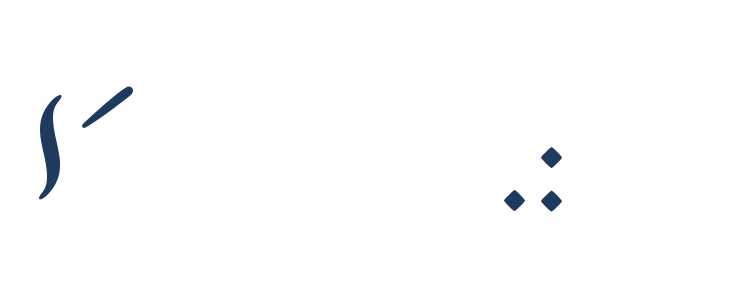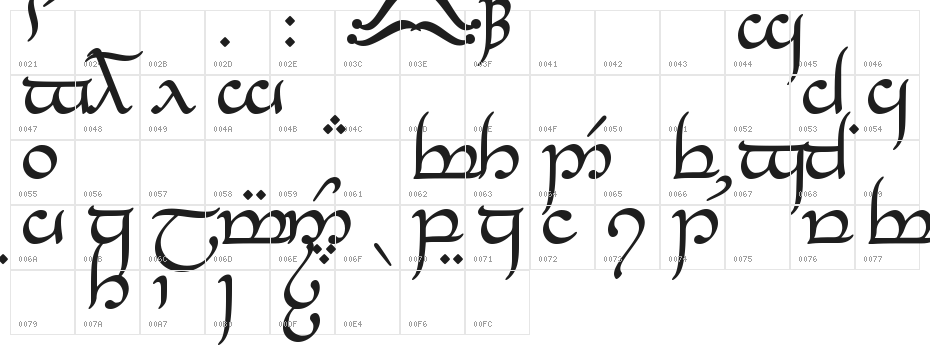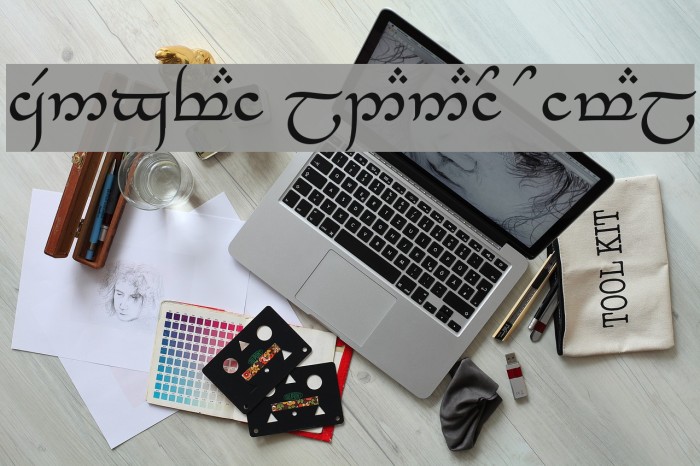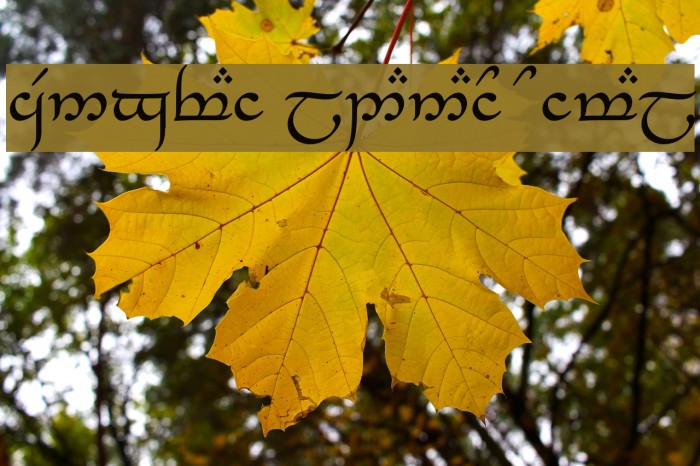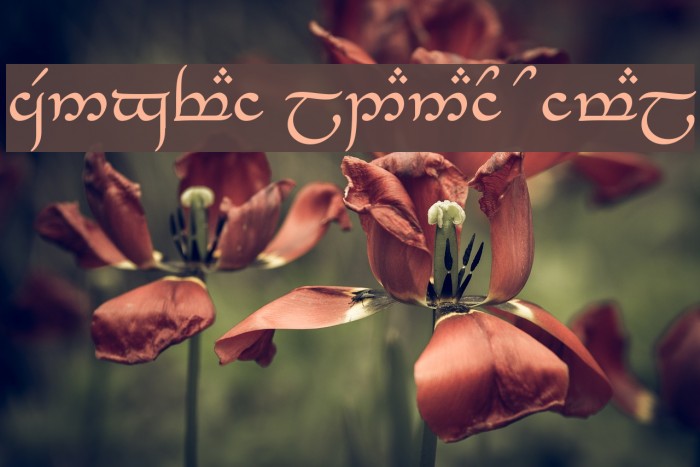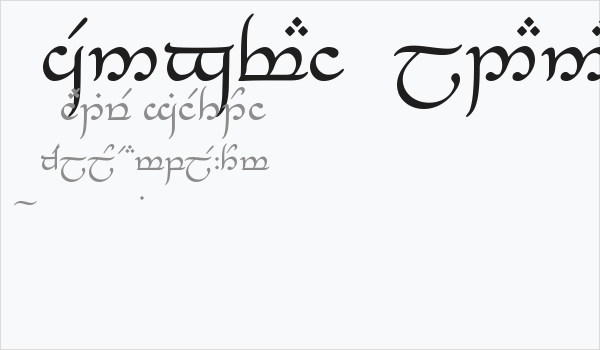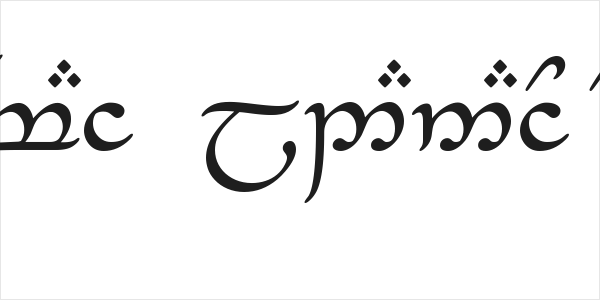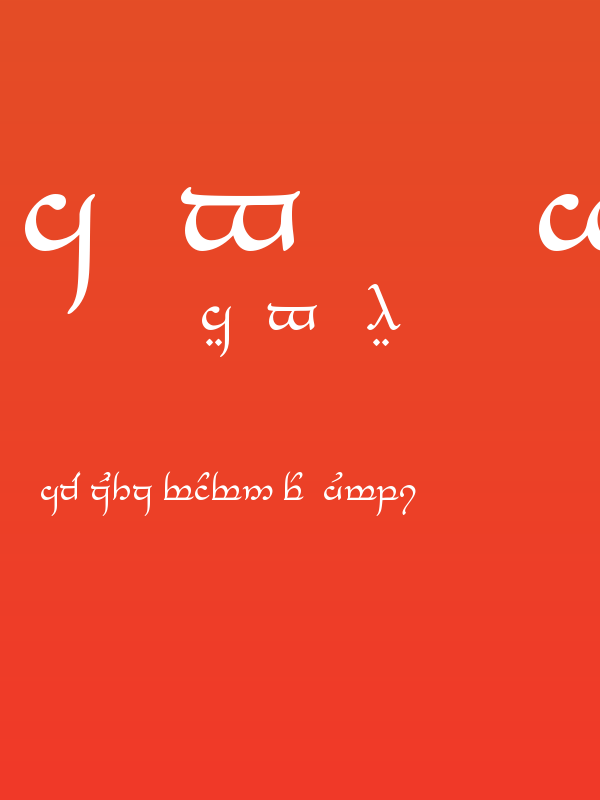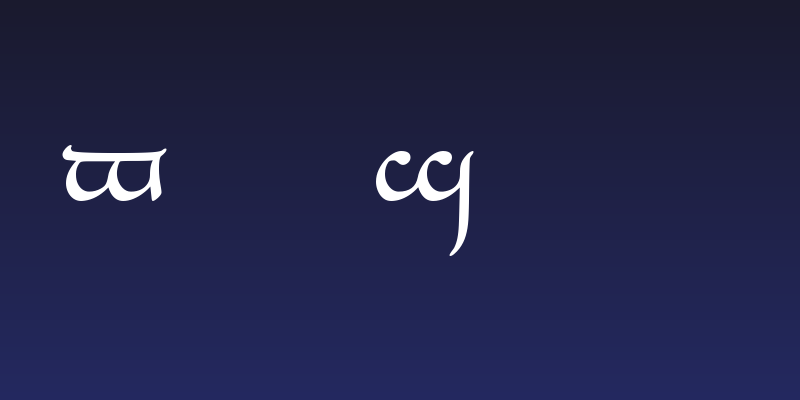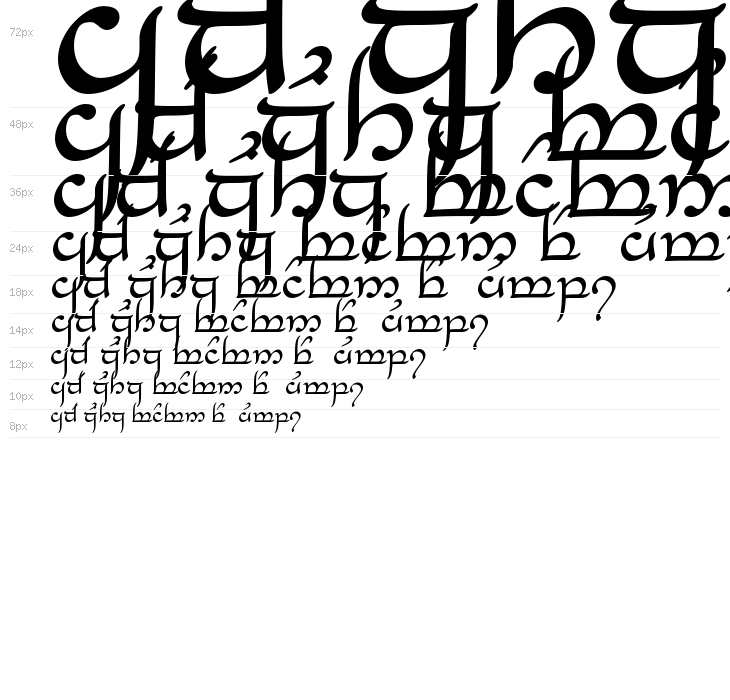
Tengwar_Eldanaro Normal Font
Tengwar_Eldanaro Normal Description
This font is a decorative script that draws inspiration from the fictional Elvish languages. It features elegant, flowing lines with intricate curves and unique character shapes, reminiscent of calligraphy. The characters have a mystical and ancient feel, with a distinct style that sets it apart from traditional Latin alphabets. The font is designed to evoke a sense of fantasy and otherworldliness, making it ideal for projects that require a touch of magic or historical depth.
| Use Case | Logos, Titles, Decorative text |
| Proposed Projects | Ideal for fantasy-themed projects, book covers, movie titles, or role-playing games that require a magical or ancient aesthetic. |